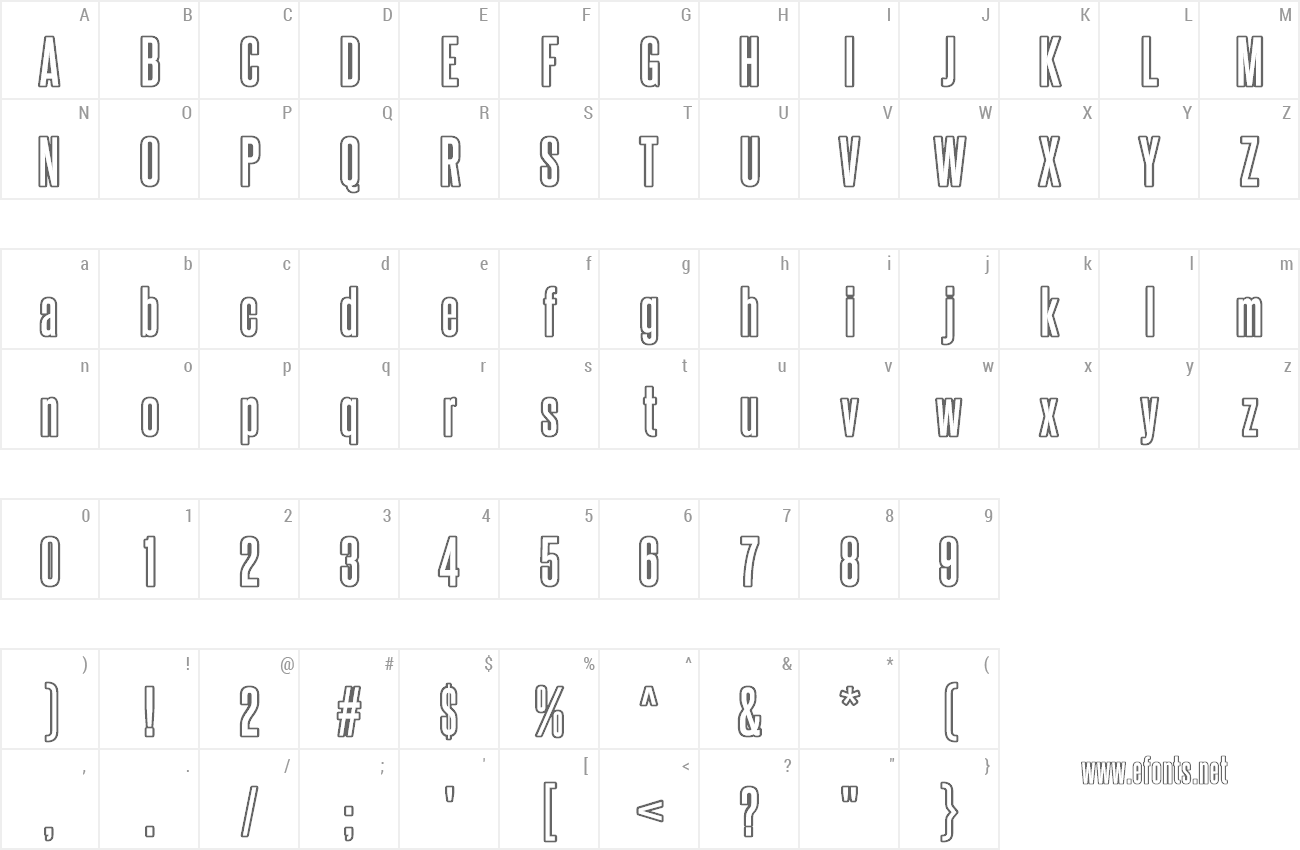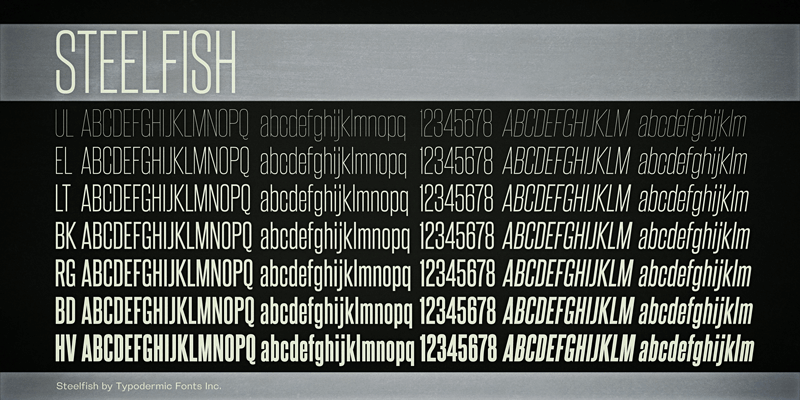
Steelfish is a condensed headline font family I created in in 2001. The original cut included regular, bold & outline styles. Steelfish was okay but it was in need of a good tuneup to perform well as a web headliner in the 2010’s. After rebuilding it, I expanded it into seven weights with italics. The weight of the original Steelfish Bold looks more like the new Steelfish Extra-Bold; keep that in mind if you’re replacing the old one. Regular, italic, bold, bold-italic, extrabold, extrabold-italic & outline styles are free. These fonts include a license that allows free commercial use: sometimes referred to as a desktop license. This allows you to install the fonts on a computer and use them to create posters, web graphics, game graphics, t-shirts, videos, signs, logos and more. Read the license agreement for details. If you'd like to embed these fonts in an app, ebook, on the web or anything that's not covered by the desktop license agreement, visit the link below. You'll find distributors who offer different types of licenses or you can contact me for help. http://typodermicfonts.com/steelfish-web-headline-fonts-7-free-styles/ These free fonts are part of a larger font family. Check out the rest of the family through the link above. |